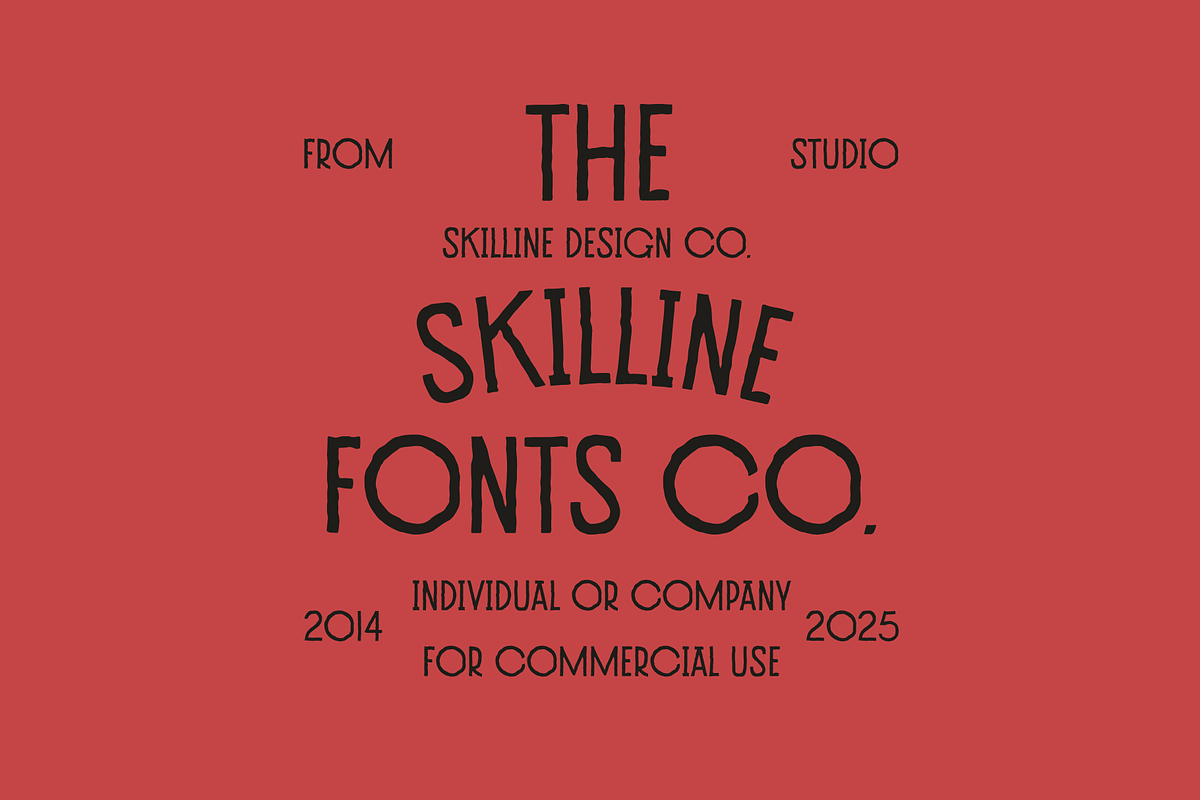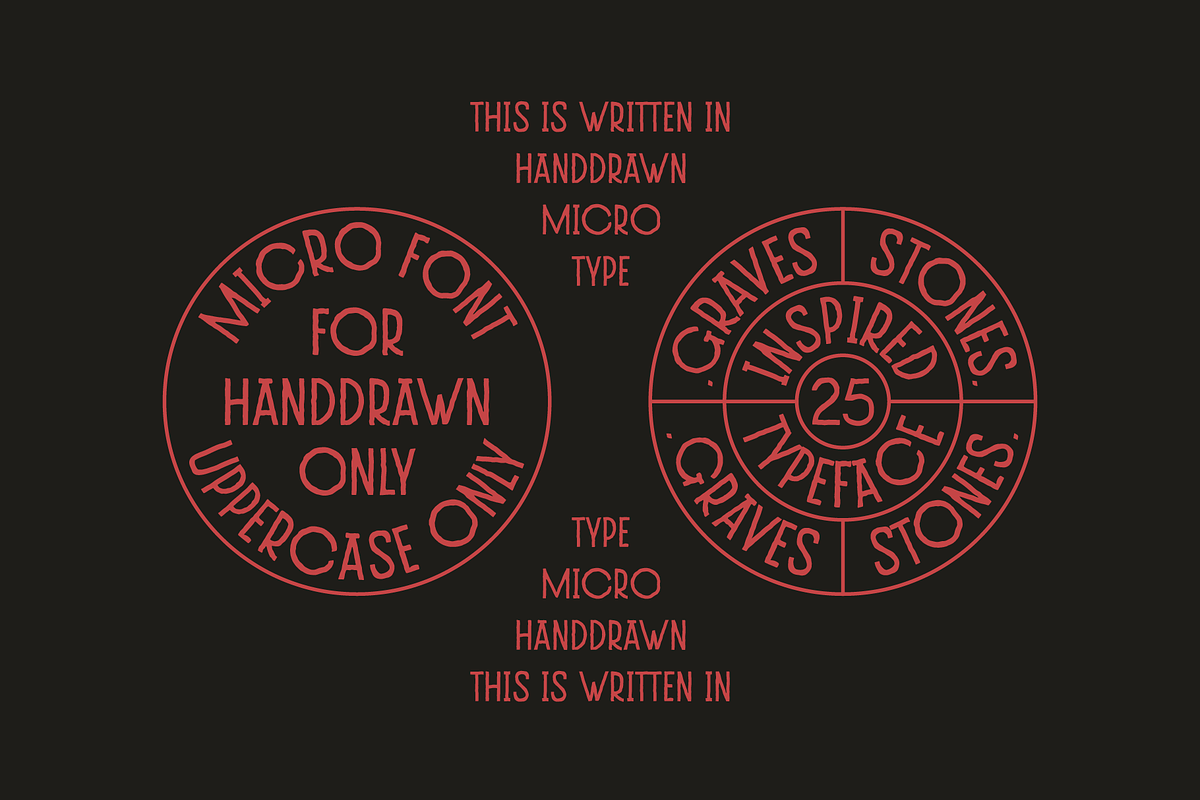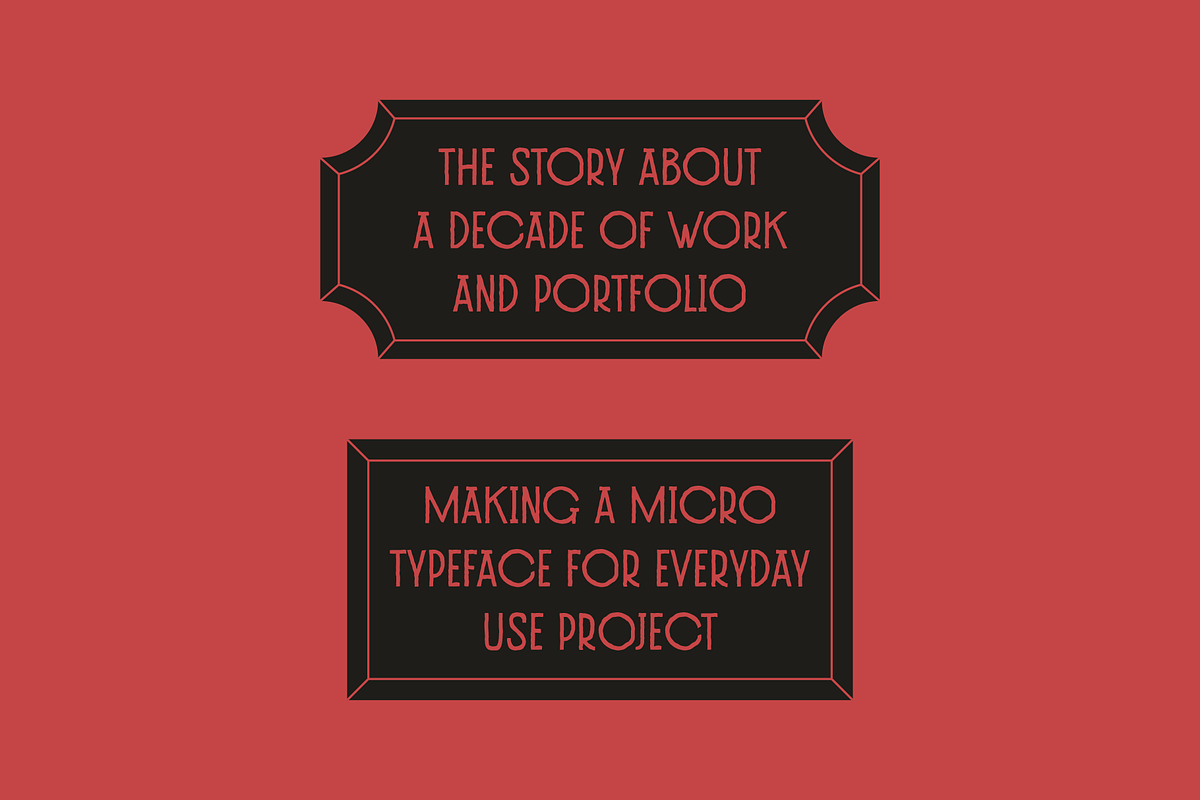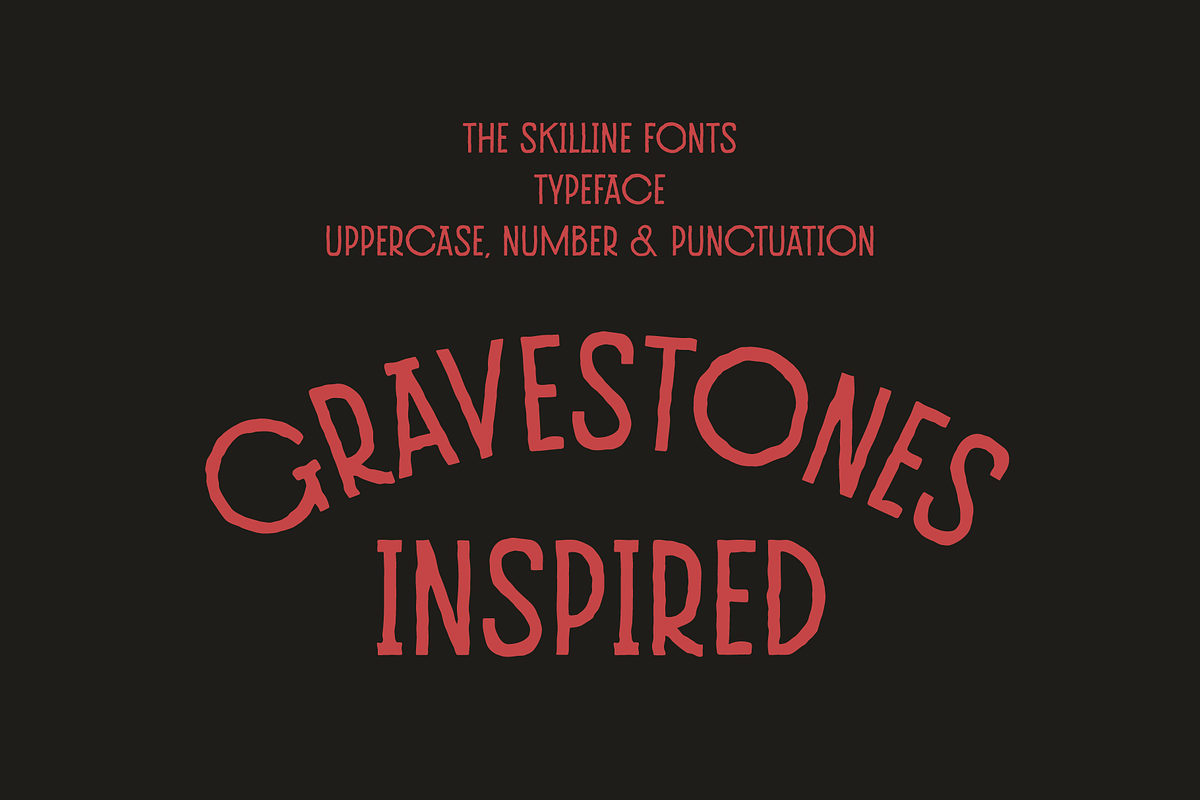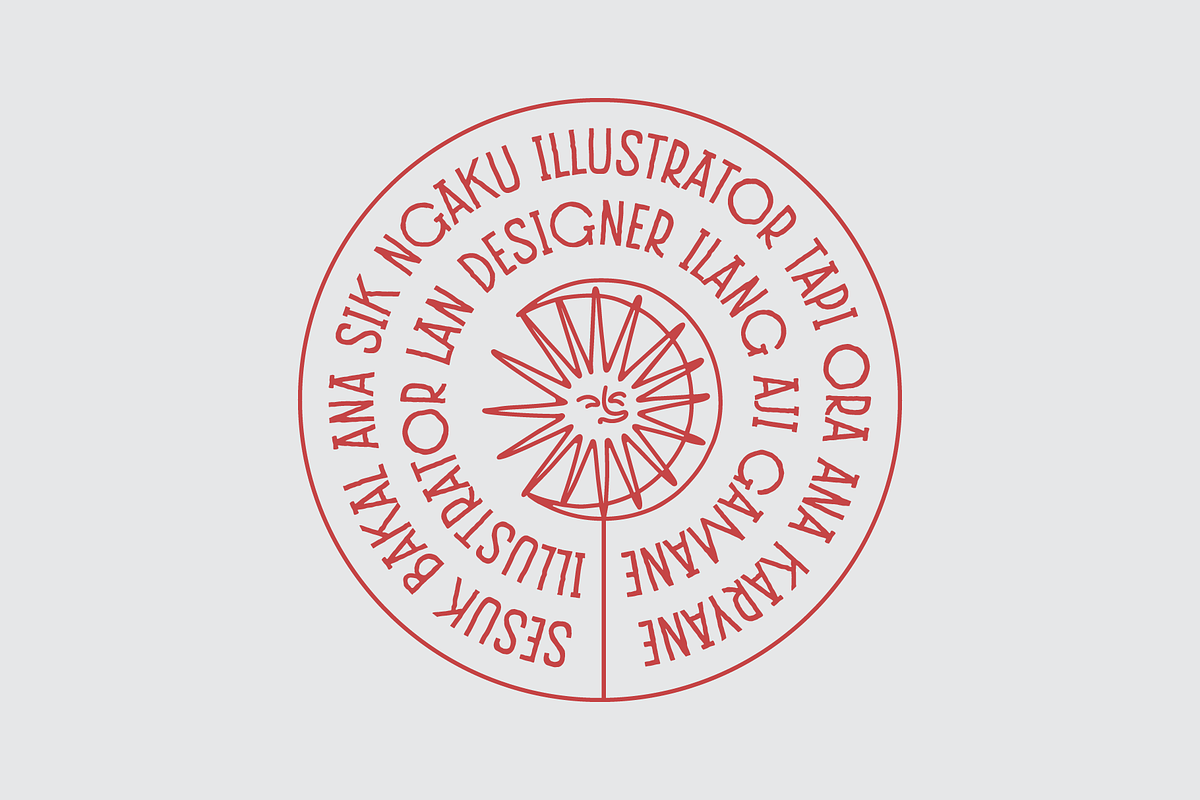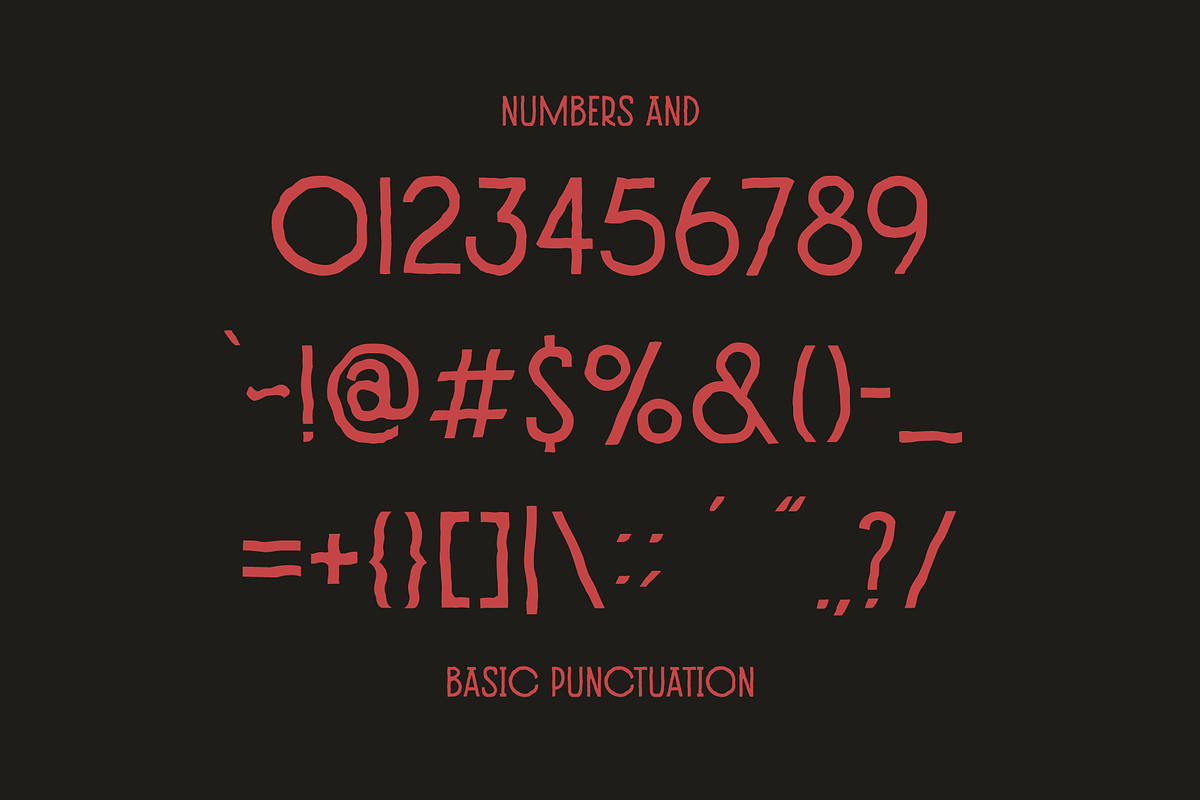
SFC Grandstones
Grandstones is a hand-drawn display font inspired by vintage gravestone lettering, crafted with irregular strokes, organic lines, and bold personality. Designed for modern branding with a nostalgic twist, it brings a unique balance of rugged authenticity and refined artistry. Whether you're building a retro identity, designing editorial spreads, or crafting bold packaging, Grandstones adds instant character to your projects. Its uppercase-only structure with handcrafted imperfections gives it an artisanal quality, perfect for badges, logos, posters, labels, and merchandise. Grandstones Typeface Designed For Grandstones is best suited for designers who want to create timeless branding and logo design with a vintage appeal, while also making bold statements across social media content on platforms. Its handcrafted character makes it ideal for editorial and print projects such as zines, posters, and retro-inspired book layouts, while its bold, organic feel brings a unique edge to packaging design, perfect for labels, artisanal foods, and handmade products. Beyond print and packaging, Grandstones also shines in merchandise and apparel, adding authenticity and style to shirts, hats, and custom accessories.